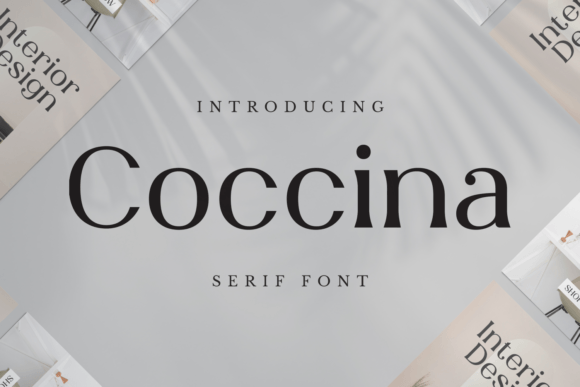
Coccina Font: Elevate Your Design with Elegance and Versatility
In the world of typography, fonts play a crucial role in conveying the tone and aesthetic of a design. Among the numerous fonts available, Coccina stands out as a serif font that embodies visual elegance, smooth curves, and beautiful ligatures. This versatile font is designed to make your work look true and attractive, making it an excellent choice for a wide range of projects.
Key Features of Coccina Font
- Serif Font: Coccina is a serif font, characterized by small lines or flourishes at the ends of the letters, which adds a touch of sophistication and elegance to your designs.
- Smooth Curves: The font features smooth, flowing curves that give it a refined and luxurious feel, making it perfect for high-end designs.
- Beautiful Ligatures: Coccina includes beautiful ligatures, which are special characters that combine two or more letters to create a unique and visually appealing effect.
- Versatile: This font is designed to work well in both large and small sizes, making it suitable for a wide range of applications.
Ideal for a Wide Range of Projects
Coccina font is suitable for a diverse array of projects, including:
- Logos: Create a lasting impression with a logo that exudes elegance and sophistication.
- Invitations: Make your invitations stand out with Coccina’s refined and luxurious feel.
- Branding: Establish a strong brand identity with a font that conveys professionalism and style.
- Magazine: Add a touch of elegance to your magazine designs with Coccina’s smooth curves and beautiful ligatures.
- Photography: Elevate your photography projects with a font that complements your images.
- Card: Create stunning cards for any occasion with Coccina’s versatile design.
- Product Packaging: Make your product packaging stand out with a font that exudes luxury and sophistication.
- Product Mockup: Create realistic product mockups with Coccina’s elegant and refined design.
- Mugs: Add a touch of style to your mug designs with Coccina’s smooth curves and beautiful ligatures.
- Quotes: Make your quotes stand out with a font that conveys elegance and sophistication.
- Posters: Create eye-catching posters with Coccina’s versatile design.
- Labels: Add a touch of luxury to your label designs with Coccina’s refined and elegant feel.
- Signatures: Create stunning signatures with Coccina’s beautiful ligatures and smooth curves.
- Editorials: Elevate your editorial designs with a font that exudes sophistication and style.
- Websites: Enhance your website’s typography with Coccina’s elegant and refined design.
- Art Deco: Add a touch of luxury and sophistication to your art deco designs with Coccina’s beautiful ligatures and smooth curves.
- Social Media: Make your social media posts stand out with Coccina’s versatile design.
Perfect for All Business Sectors
Coccina font is an excellent choice for various business sectors, including:
- Personal Projects: Add a touch of elegance and sophistication to your personal projects.
- Studios: Establish a strong brand identity with Coccina’s refined and luxurious feel.
- Corporate: Convey professionalism and style with a font that exudes elegance and sophistication.
- Creative Agencies: Elevate your designs with Coccina’s beautiful ligatures and smooth curves.
- Industrial: Add a touch of luxury and sophistication to your industrial designs.
- Company: Establish a strong brand identity with Coccina’s versatile design.
Tips for Using Coccina Font Effectively
To get the most out of Coccina font, consider the following typography tips:
- Pair with Other Fonts: Experiment with pairing Coccina with other fonts to create a unique and visually appealing effect.
- Adjust Font Sizes: Adjust the font size to create visual hierarchy and emphasize important information.
- Use Ligatures: Take advantage of Coccina’s beautiful ligatures to add a touch of elegance and sophistication to your designs.
- Experiment with Colors: Experiment with different colors to find the perfect combination that complements your design.
Coccina font is a versatile and elegant serif font that is perfect for a wide range of projects. With its smooth curves, beautiful ligatures, and refined design, it’s an excellent choice for designers looking to add a touch of luxury and sophistication to their work. Whether you’re working on a personal project or a corporate design, Coccina font is sure to elevate your designs and make them stand out.